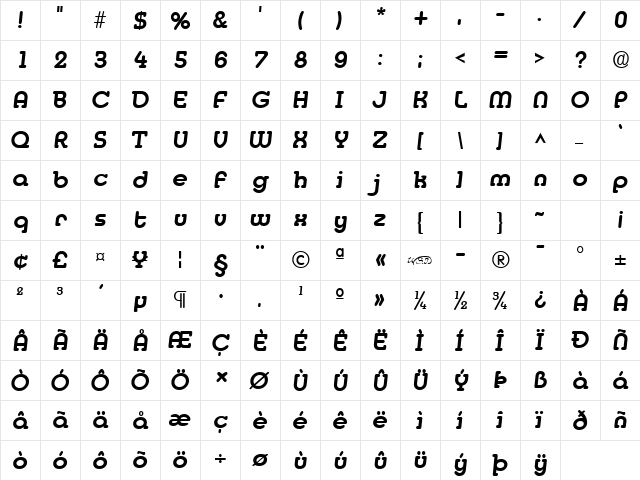
Medfly Extrabold Regular
Design Context for Medfly Extrabold Typeface
Medfly Extrabold offers clean, dependable letterforms without strong stylistic allegiance, making it a practical choice for designers who need flexibility. Its bold stroke weight gives it real presence on the page.